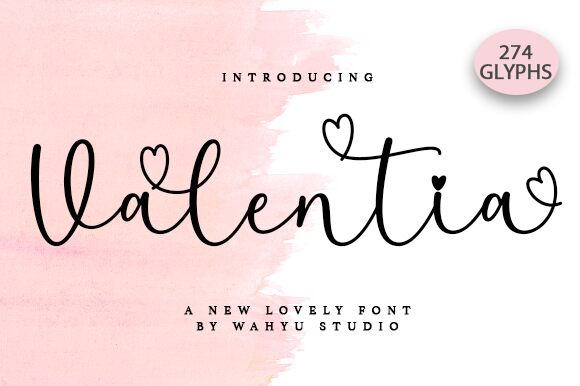
Valentia
Valentia font is a stylish calligraphy typeface created by Wahyu Studio. The elegant font holds a whimsical handwritten style and dynamic letter flow to make any project appear fancy and romantic. Its casual charm stems from the smooth curves of each letter making it suitable for fun branding, advertising, or informative projects.
This free calligraphy font uses all lowercase letters with minimal capital letters for beginnings of sentences as needed. Use this charming script for wedding invitations, makeup brand packaging, clothing labels, posters, invitations cards, birthday cards, logos or handmade product captions.